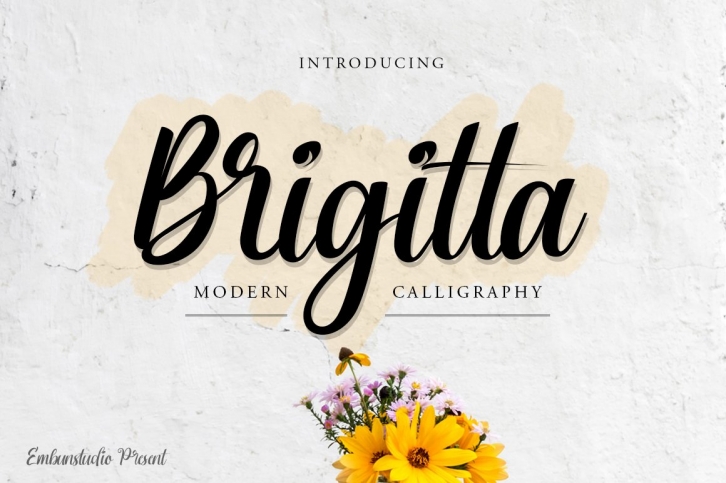
Brigitta Script is a great font that was designed by rezkistore. Imagine the amount of combinations you can create using this font! The archive is 14.82 MB and it was released on June 23, 2020. Brigitta Script looks beautiful on wedding invitations, greeting cards, logos, posters, labels, t-shirt designs, logos, business cards and is perfect for use in ink or watercolor works, fashion, magazines, packaging and food menus, children's books and more!